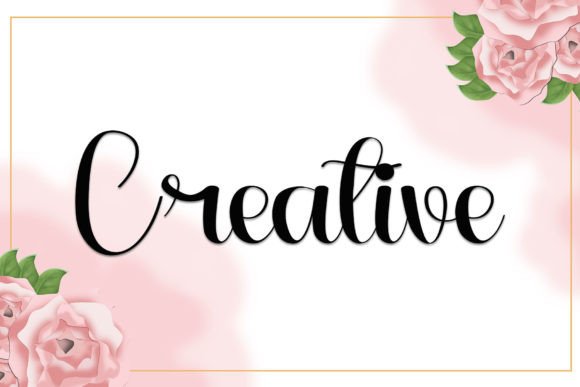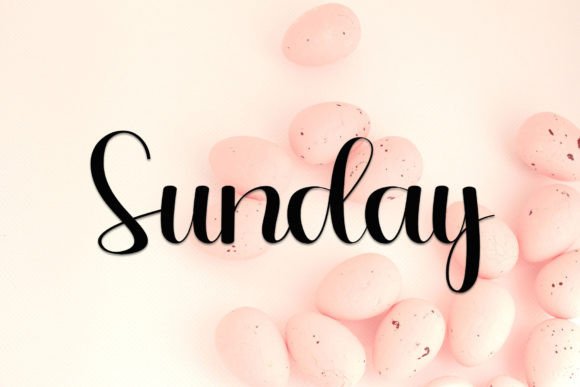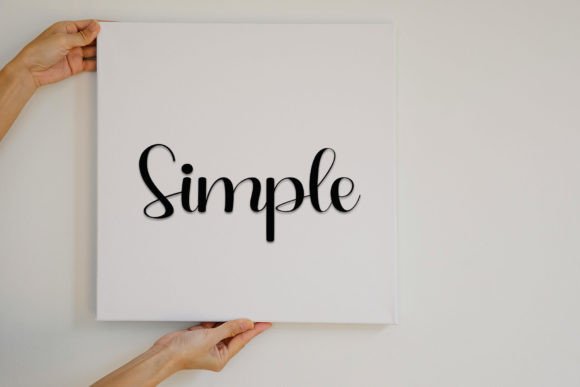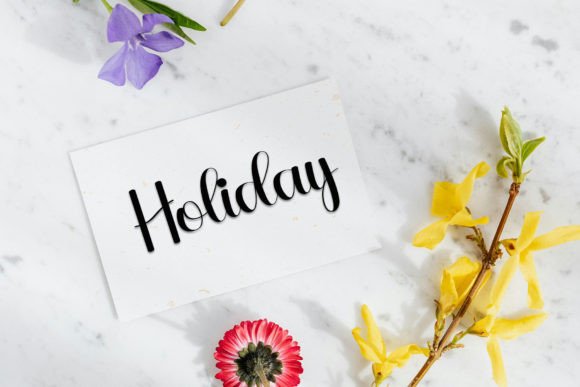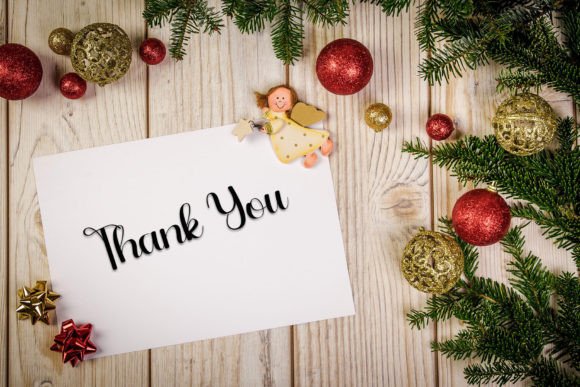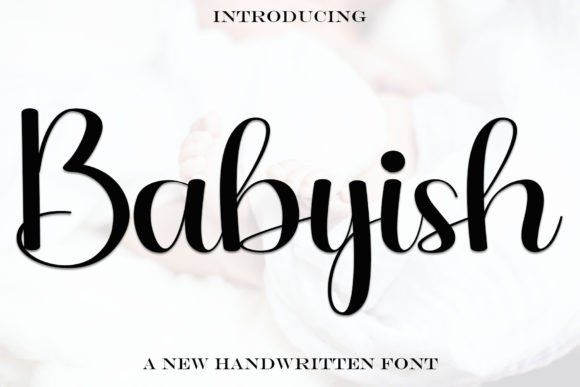
Babyish Font: Elevate Your Designs with Elegance and Sophistication
In the world of typography, fonts play a crucial role in conveying the tone and personality of a design. For designers and crafters looking to add a touch of elegance and class to their projects, the Babyish Font is an excellent choice. This trendy handwritten font is inspired by timeless classic calligraphy, making it perfect for those seeking a contemporary yet sophisticated look.
What is Babyish Font?
Babyish Font is a modern handwritten font that exudes a sense of refinement and poise. Its impeccable form and classic calligraphy inspiration make it an ideal choice for designers who want to add a touch of luxury to their designs. Whether you’re working on a branding project, wedding invitation, or social media graphics, Babyish Font is sure to impress.
Key Features of Babyish Font
- Trendy and Contemporary: Babyish Font boasts a modern and fresh look that’s perfect for designers who want to stay on top of the latest typography trends.
- Handwritten with Elegance: The font’s handwritten style adds a personal touch to your designs, while its elegant lines and curves convey sophistication and refinement.
- Inspired by Classic Calligraphy: Babyish Font draws inspiration from timeless classic calligraphy, making it an excellent choice for designers who want to add a touch of tradition to their designs.
- Impeccable Form: The font’s impeccable form ensures that it looks great in any design, from digital graphics to print materials.
Uses of Babyish Font
Babyish Font is a versatile font that can be used in a variety of design projects, including:
- Branding and Logo Design: Use Babyish Font to create a sophisticated and elegant brand identity that sets your business apart.
- Wedding Invitations and Stationery: Add a touch of luxury and romance to your wedding invitations and stationery with Babyish Font.
- Social Media Graphics: Use Babyish Font to create eye-catching social media graphics that showcase your brand’s personality and style.
- Packaging Design: Elevate your packaging design with Babyish Font, perfect for luxury brands and high-end products.
Why Choose Babyish Font?
With so many fonts available, why choose Babyish Font? Here are just a few reasons:
- Unique and Distinctive: Babyish Font offers a unique and distinctive look that’s sure to set your designs apart.
- Elegant and Sophisticated: The font’s elegant lines and curves convey sophistication and refinement, making it perfect for luxury brands and high-end designs.
- Easy to Read: Despite its elegant style, Babyish Font remains easy to read, making it perfect for body text and headlines.
Tips for Using Babyish Font
To get the most out of Babyish Font, here are a few tips:
- Pair with Neutral Colors: Pair Babyish Font with neutral colors like black, white, and gray to let the font take center stage.
- Use for Headlines and Titles: Use Babyish Font for headlines and titles to add a touch of elegance and sophistication to your designs.
- Experiment with Font Sizes: Experiment with different font sizes to create visual interest and hierarchy in your designs.
In conclusion, Babyish Font is a trendy handwritten font that offers elegance, sophistication, and refinement. Its impeccable form and classic calligraphy inspiration make it an excellent choice for designers and crafters looking to add a touch of luxury to their designs. With its versatility and ease of use, Babyish Font is sure to become a staple in your font collection.